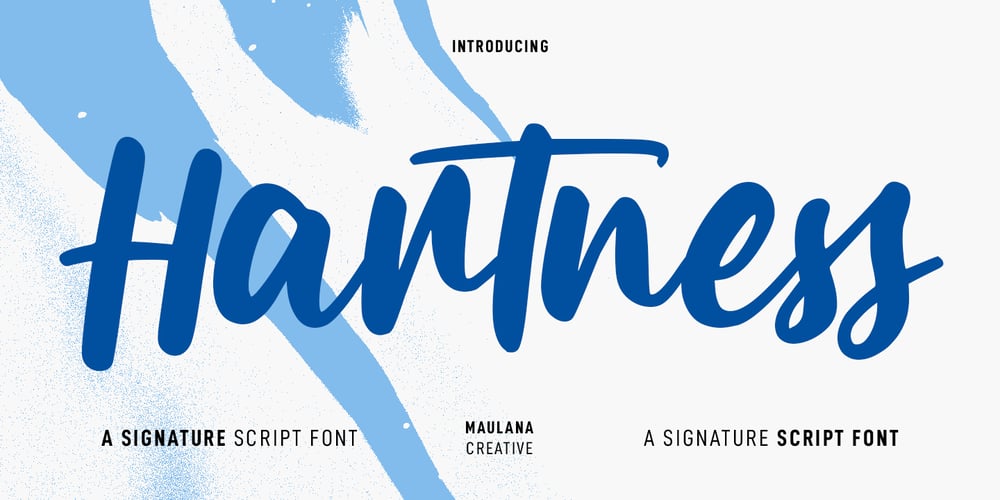
MC Hartness Font Family was designed by Gilang Maulana and published by Maulana Creative. MC Hartness contains 1 styles and family package options. Hartness is a casual signature script font. With medium contrast stroke, fun character with a bit of ligatures and alternates. To give you an extra creative work. Hartness font support multilingual more than 100+ language. This font is good for logo design, Social media, Movie Titles, Books Titles, a short text even a long text letter and good for your secondary text font with sans or serif. Make a stunning work with Hartness font. Cheers, Maulana Creative